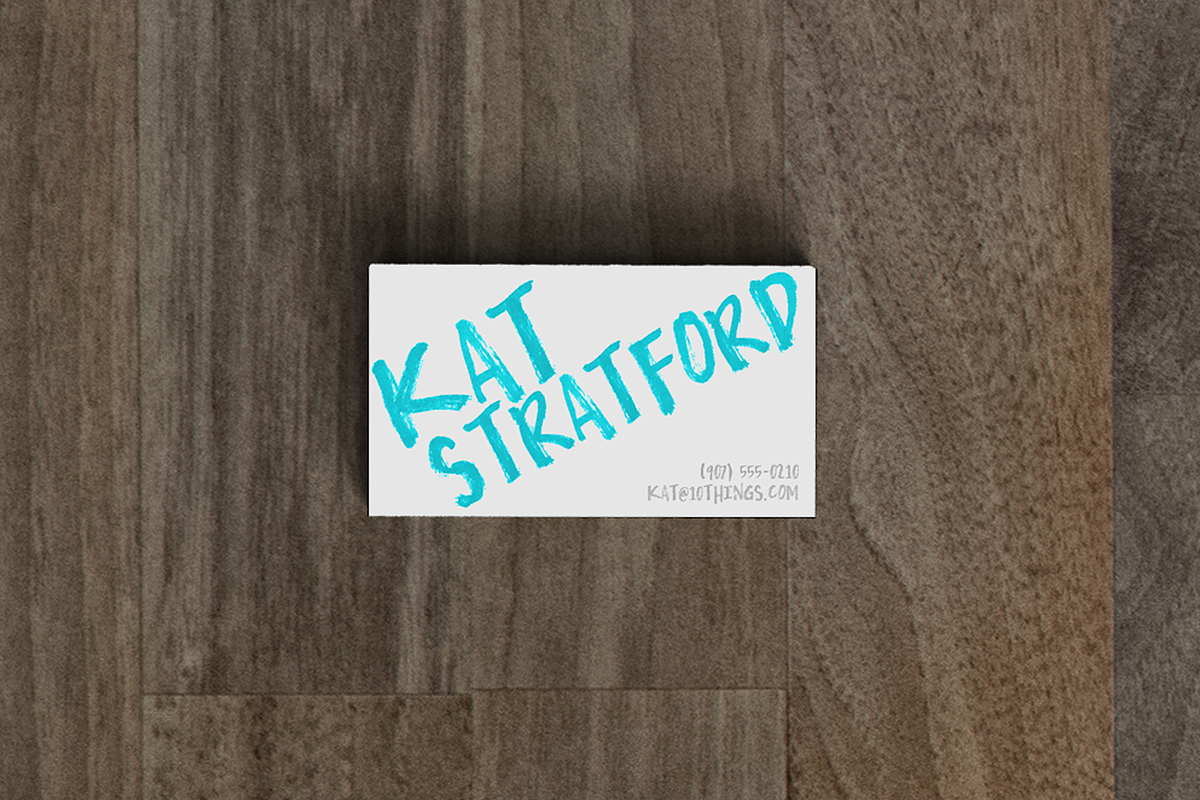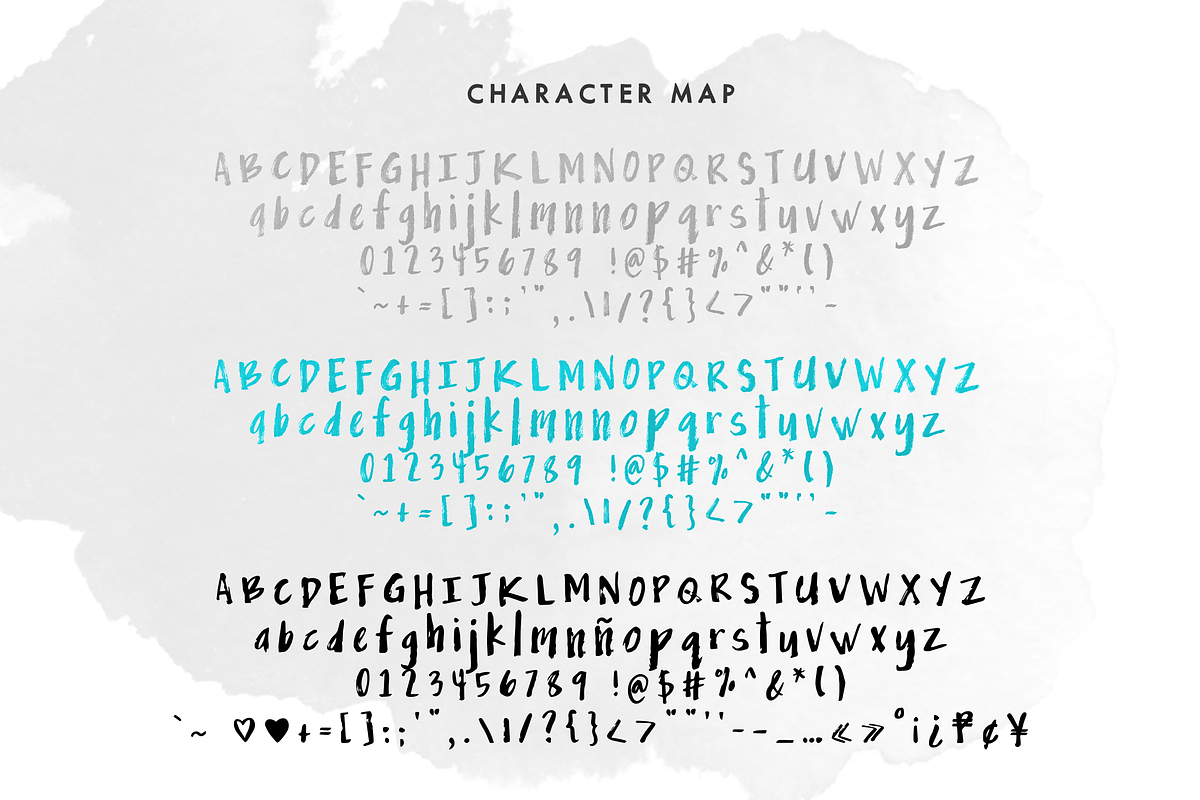
Drybrush — OpenType SVG Font Trio
MIX DRYBRUSH was written with a nearly dried-out brush pen. This font is perfect for handmade and DIY themed projects.
Mix Drybrush - OTF grayscale version of the typeface
Mix Drybrush Turq - OTF of the original turquoise version
Mix Grungy- OTF and TTF of the flat vector counterpart of this font |
abcdefghijklmnñopqrstuvwxyz